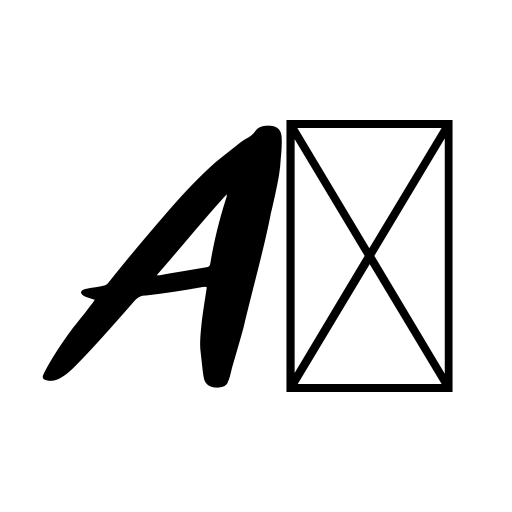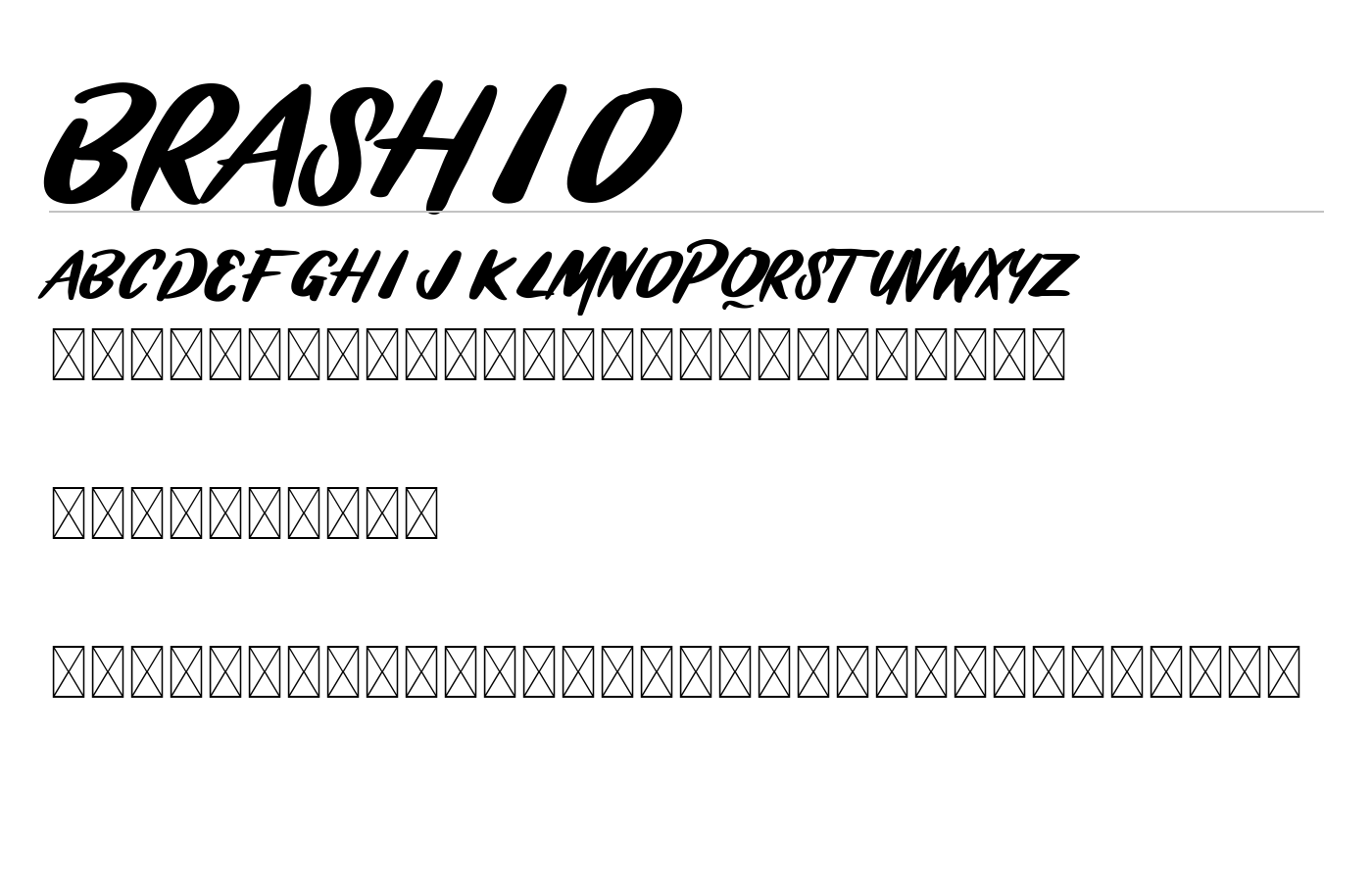
BRASHIO is a bold, energetic script font with a strong handwritten feel that captures a lively and dynamic personality. Its smooth, thick strokes and slightly condensed letterforms make it perfect for eye-catching headlines, logos, or branding that needs a casual yet confident flair. This font works well for creative projects, sports branding, and modern lifestyle themes where a sense of movement and style is important.
BRASHIO Font
About BRASHIO Font
| Designer | Sigit Dwipa |